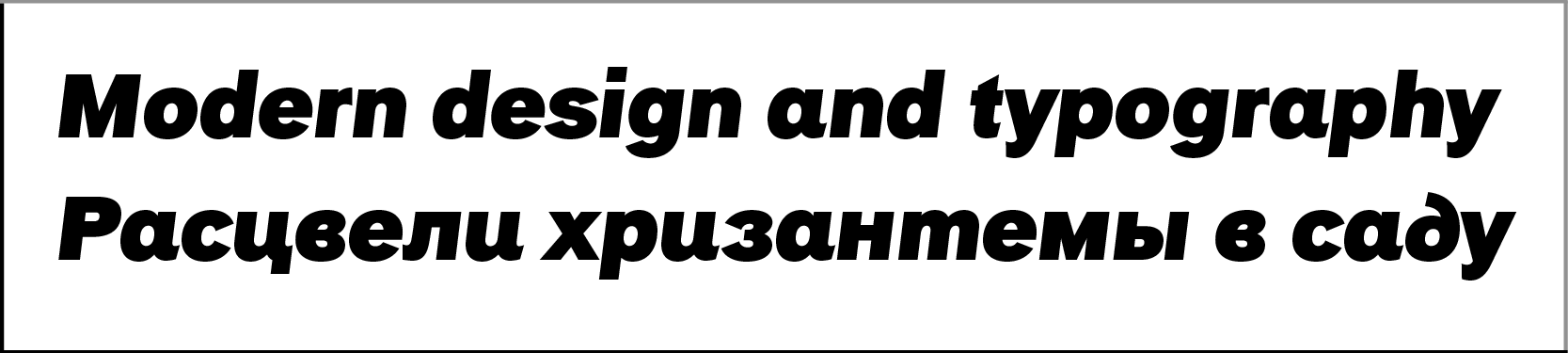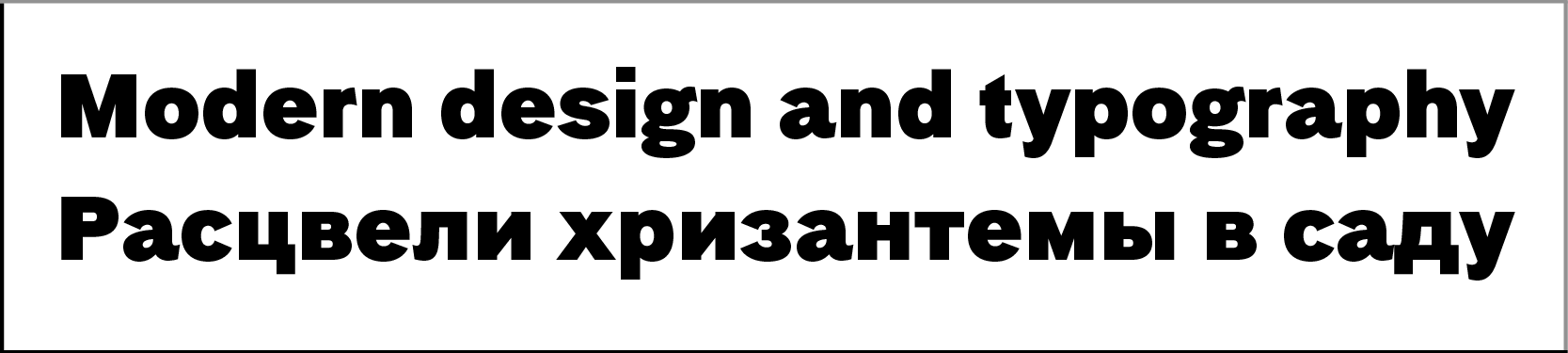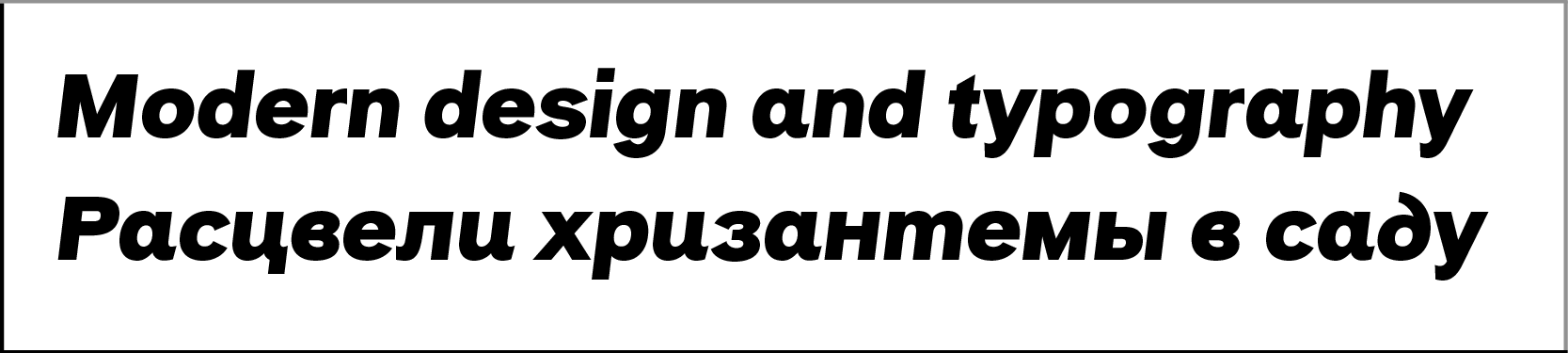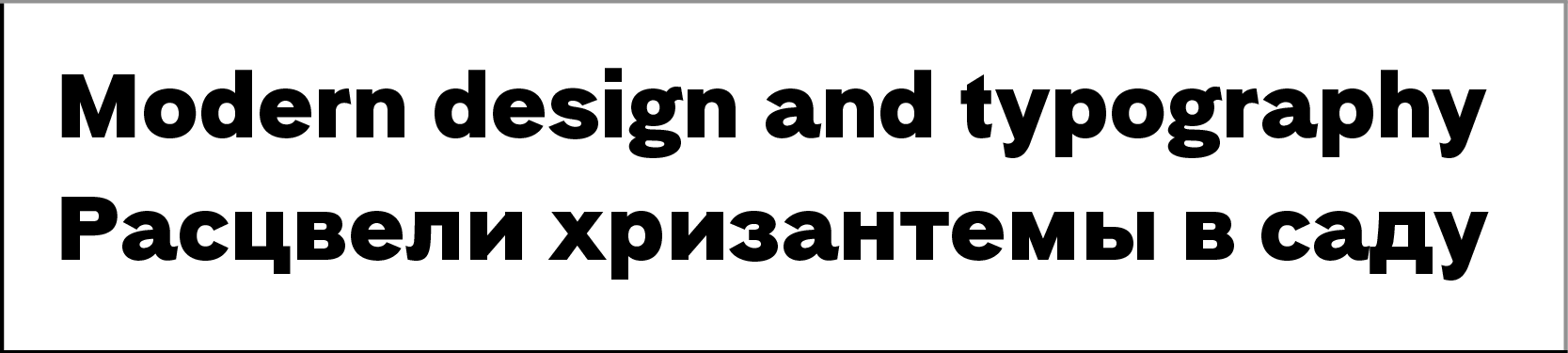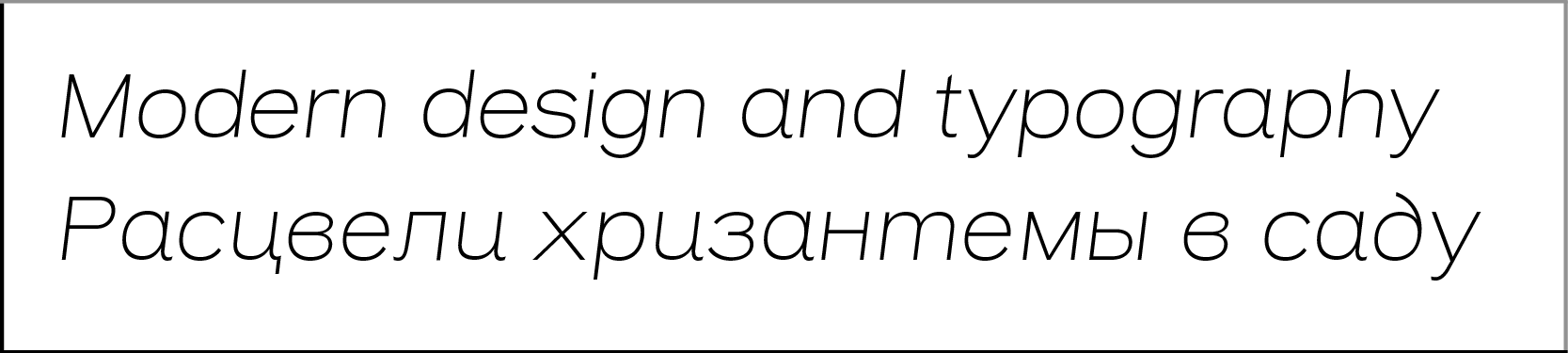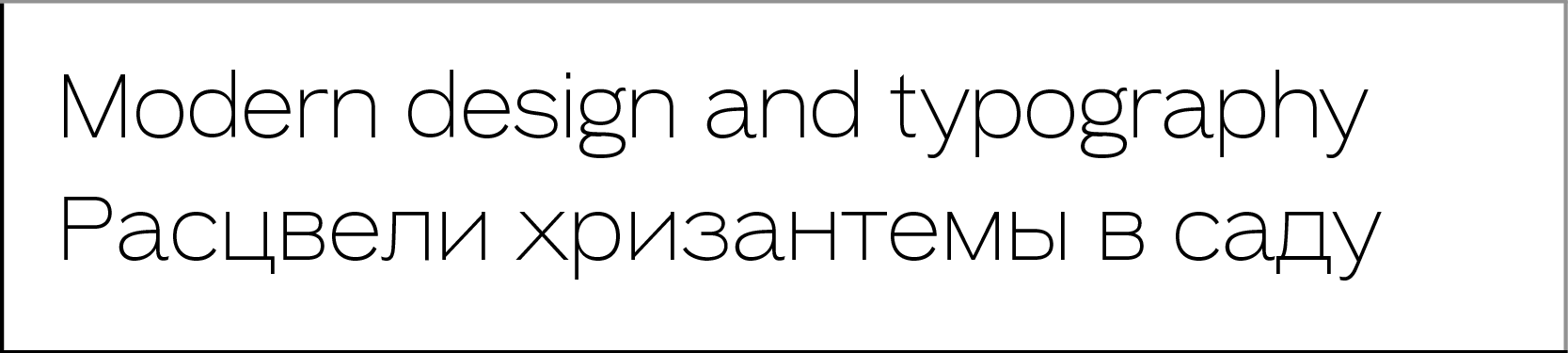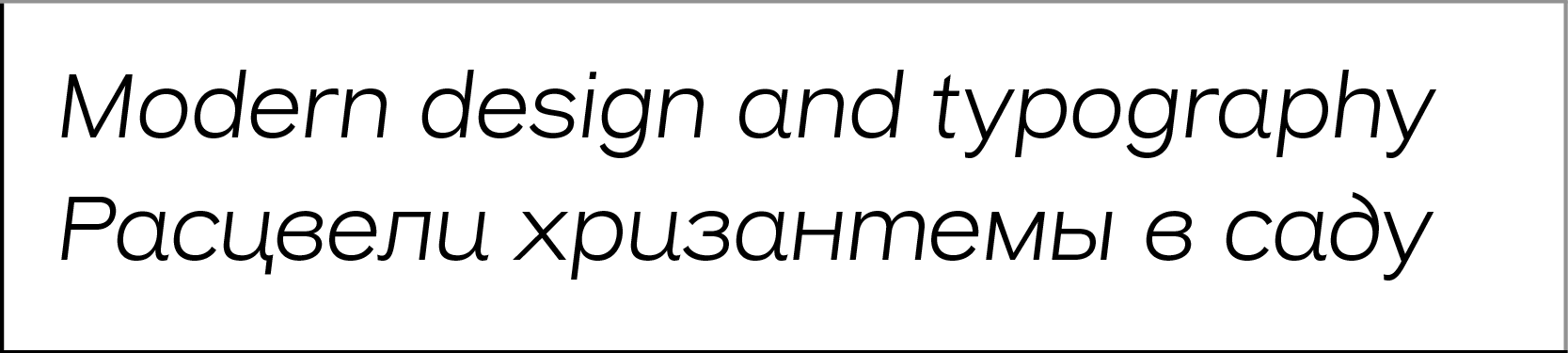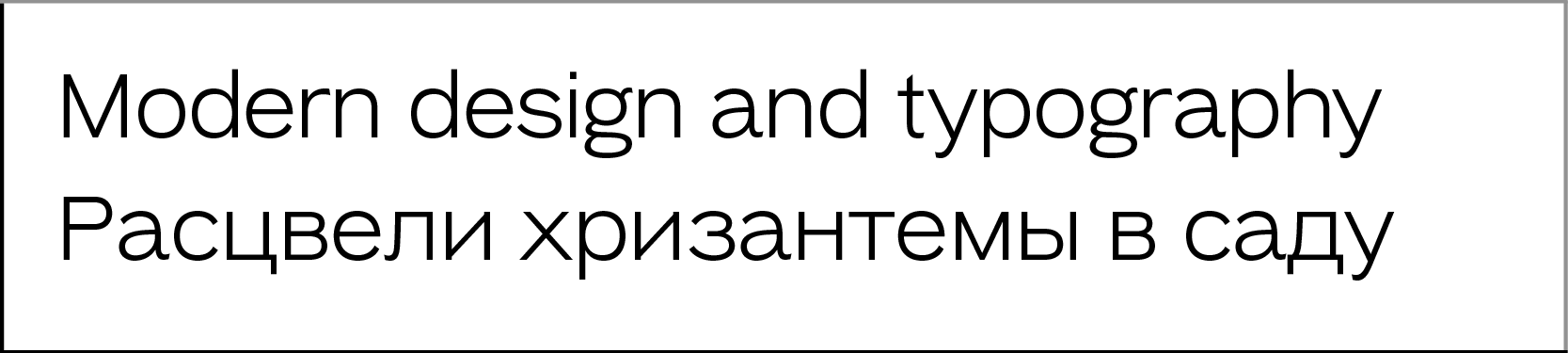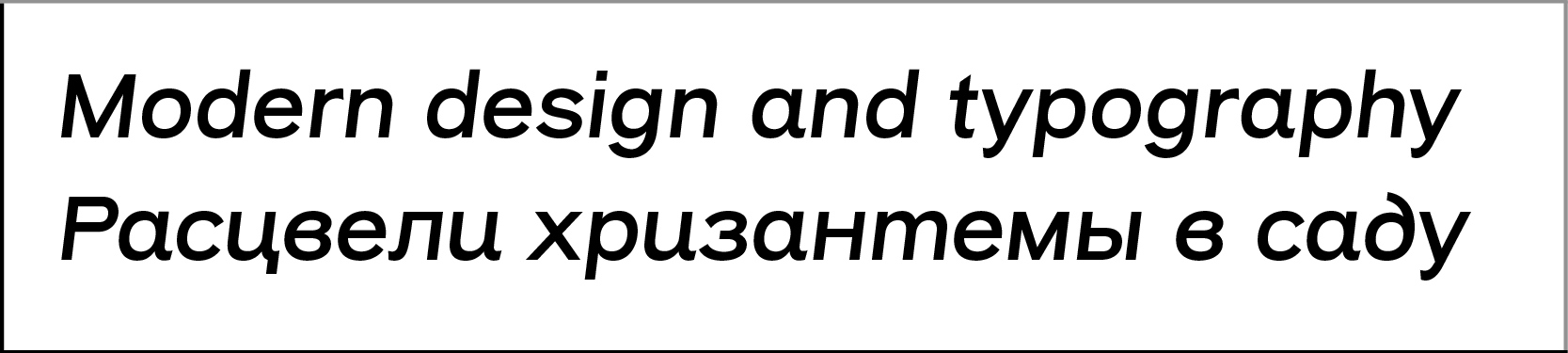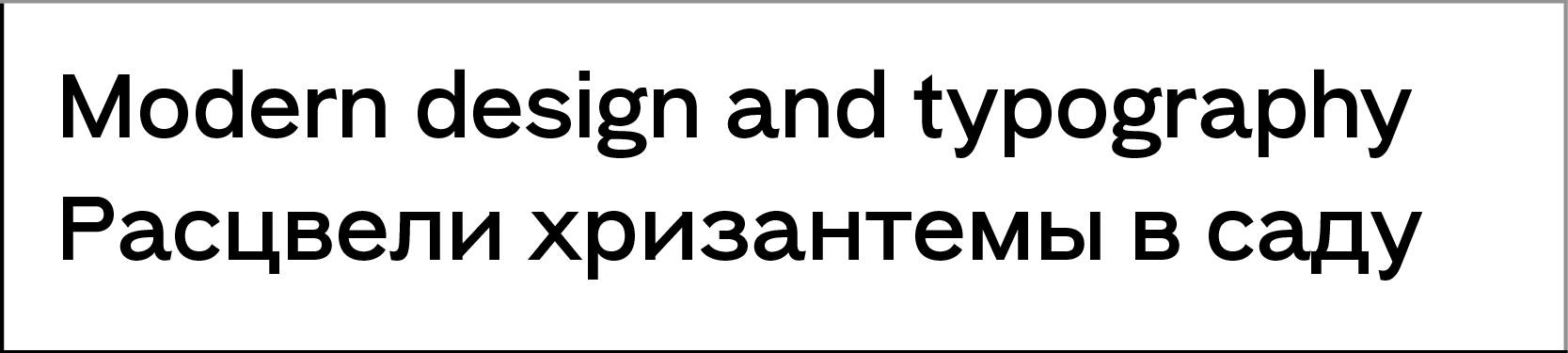
RockStar Narrow
Designer: Kyrylo Tkachov
Design date: 2020
The font family includes Latin  and Cyrillic alphabet systems․
From Regular to Bold the font can be used as a text font and all the other weights can be used as a title or display font.